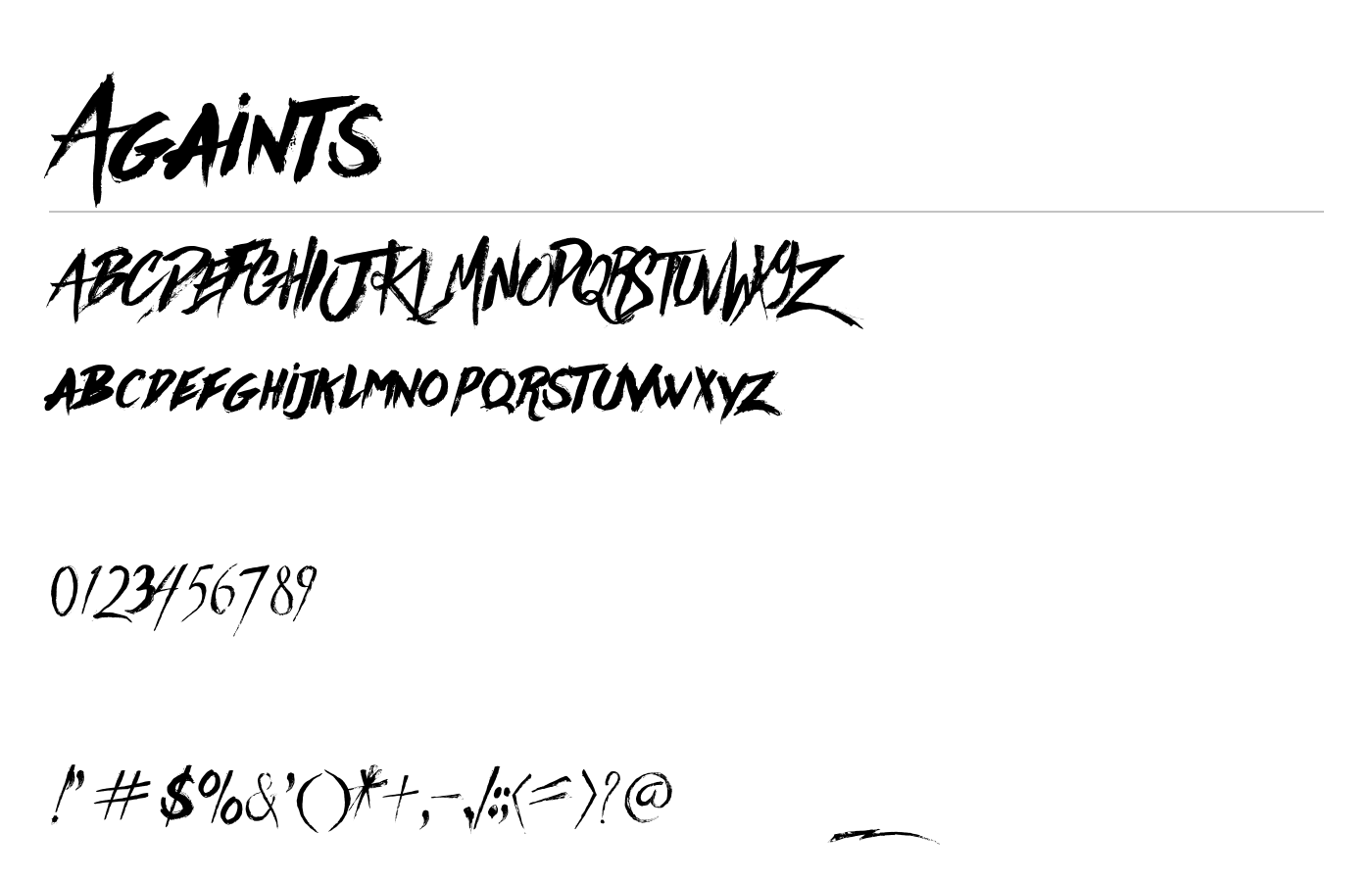
Againts is a bold, expressive brush script font with a rough, hand-painted style that conveys energy and creativity. Its dynamic strokes and slightly irregular forms give it an edgy, rebellious personality, making it ideal for artistic branding, posters, and headlines that need a raw, authentic vibe. This font works best where impact and character are essential, adding a vibrant, handcrafted feel to any design.
Againts Font
About Againts Font